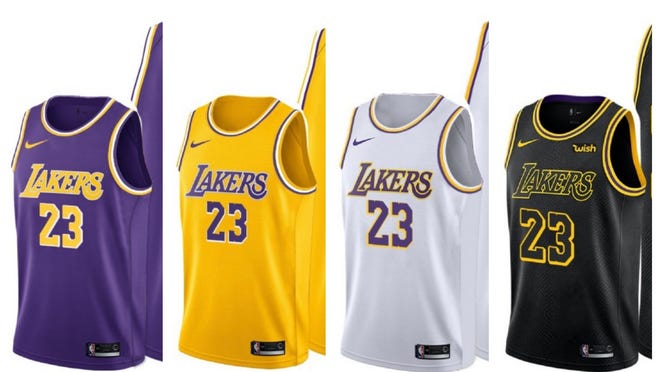
Lettering lakers font. The font is a commercial one and can be purchased here. There are no other letters except for the ones used in the logo. Lakers is a multipurpose condensed uppercase sans serif typeface font designed by Gfonts.
Create Custom Logos With A Basketball Logo Maker Placeit. If you dont feel like buying this font Its ok. Lakers Free Font is a classic all-caps sans serif font whic may be used for absolutely different purposes from the design of cute postcards to use in a rough vintage old-school logos.
Nba Celtics Font Download Boston Celtics Font Fonts4free. Compacta Com Download Compacta Com Similar free fonts for Compacta Com font. The font used for Los Angeles Lakers logo is very similar to Bauer Bodoni Black Italic which is a neoclassical serif font designed by Giambattista Bodoni Heinrich Jost and published by Linotype.
Terrill Associated Press LeBron might have seen three basketball rims after getting poked in the eye while making the winning shot against the Warriors but what I saw in my mind was. The actual font used for the logo is called Bodoni by Linotype and is available for purchase. Lakers Font - Lakers Font Generator The Lakers logo features the Lakers logotype as well as the text Los Angeles on a basketball.
Free NBA Lakers Font for Basketball Fans. Download for free from the link below. Lakers Free Font is a classic all-caps sans serif font whic may be used for absolutely different purposes from the design of cute postcards to use in a rough vintage old-school logos.
Fonts Logo Los Angeles Lakers Logo Font What font does Los Angeles Lakers use. Unless somebody made all the other letters of the alphabet to specifically fit those already in use in the word Lakers you wont find it. Note of the author Introducing Lakers multipurpose condensed uppercase clean sans serif typeface.
Jul 18 2015 - The NBA Lakers Showtime font contains 236 beautifully designed characters. For its classic all-caps sans serif font Lakers can be used for different purposes from the design of cute postcards to use in any old-school logo. The NBA Lakers font contains 73 beautifully designed characters.
Introducing Lakers multipurpose condensed uppercase clean sans serif typeface. The closest font you can get for the Los Angeles Lakers logo is Valencia Serial Medium Italic font. The lettering for the Lakers logotype resembles a font named Bodoni Italic created by Gerald Giampa.
The franchise was newly-named the Lakers in reference to Minnesotas nickname The Land of. The letters in the logo have been constructed as a graphic. Weve found a free font too.
This font designed by Manfred Klein. Fonts Commercial Fonts. Its not a font per se.
Similar free fonts for Compacta Regular font. Los Angeles Lakers Font Free Alternatives. It has a nice and unique typeface with two styles Lakers Regular and Lakers Textured.
It all started in 1947 when two Minnesotans Ben Berger and Morris Chaffen decided to buy a recently-disbanded basketball franchise from the then National Basketball League. For a free version that looks just as good you can try ParmaPetit by Manfred Klein or NBA Lakers by Eriq P. When you start modifying the shapes of the letters you are now illustrating hand-drawn lettering.